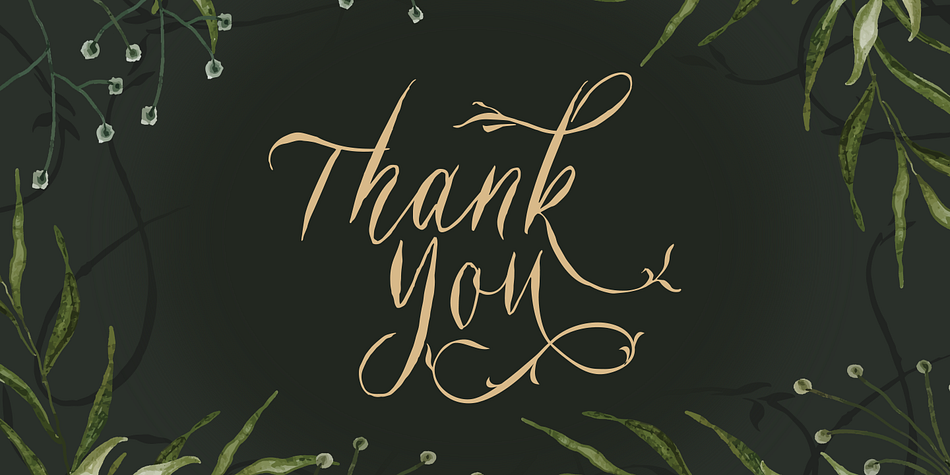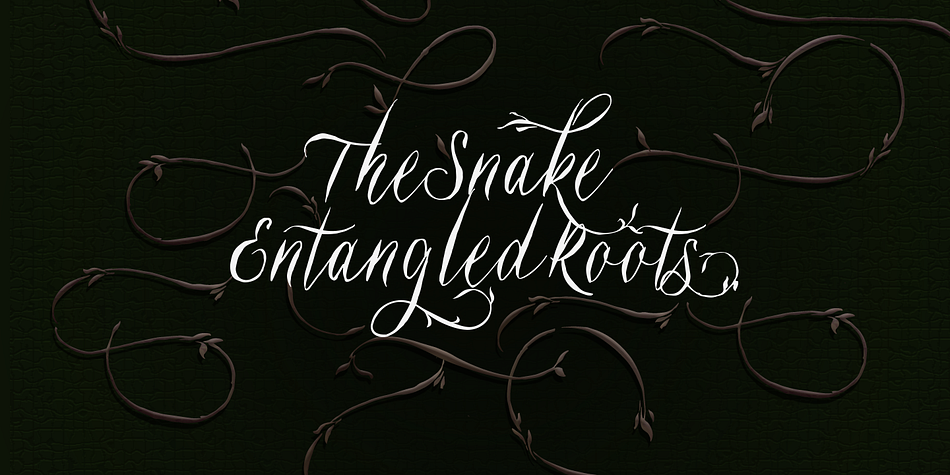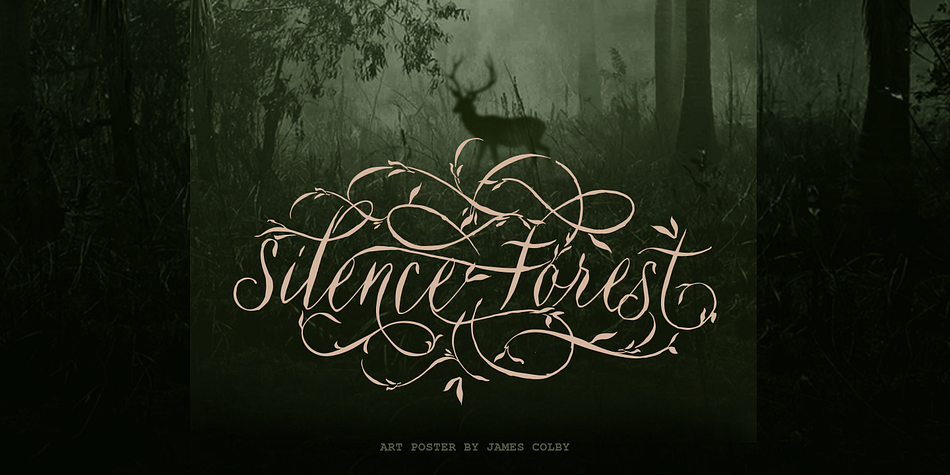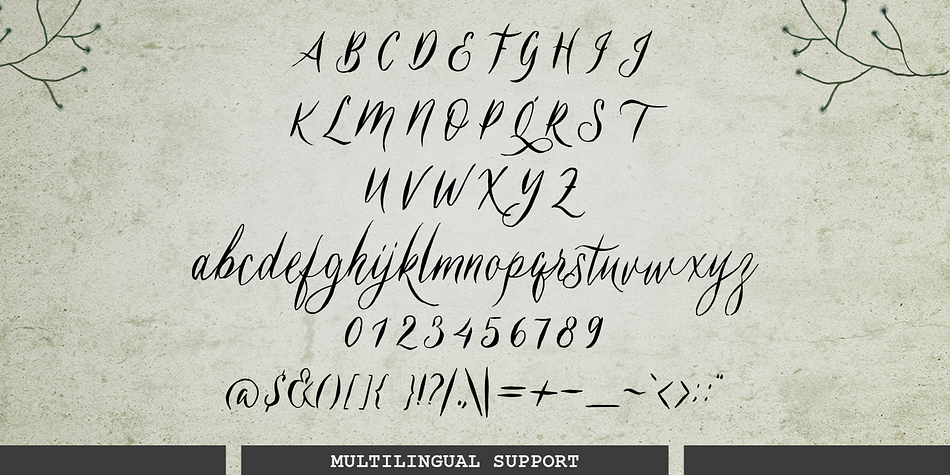
Belukar
Designed by Hendry Juanda, Belukar is a hand drawn, modern calligraphy and script font published by Letterhend Studio.
Introducing, Belukar - A unique display script font. As you can see, this font has unique swash ornament, combination between root of tree and leaves. This type of font perfectly made to be applied especially in dark theme design, band logos, labels, packaging, stationery, novels, labels or any type of advertising purpose.
- uppercase & lowercase
- numbers and punctuation
- multilingual
- swash and ligature
- alternates